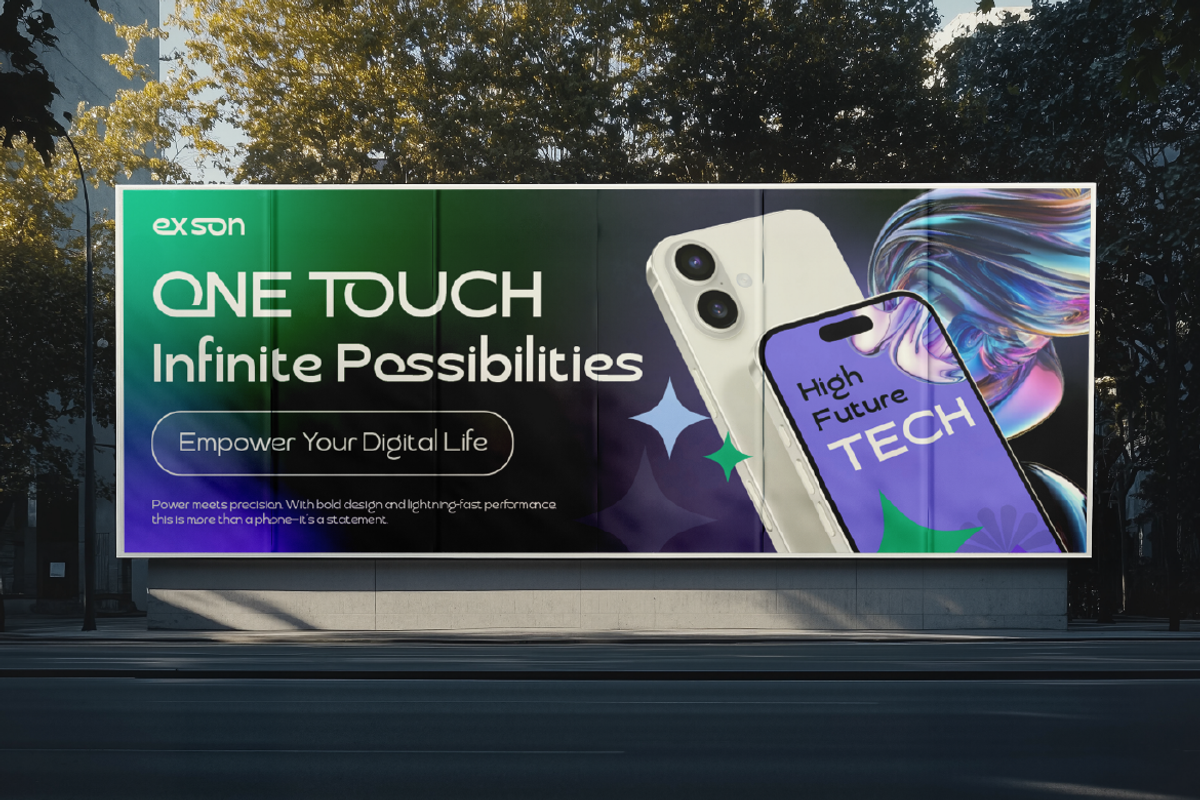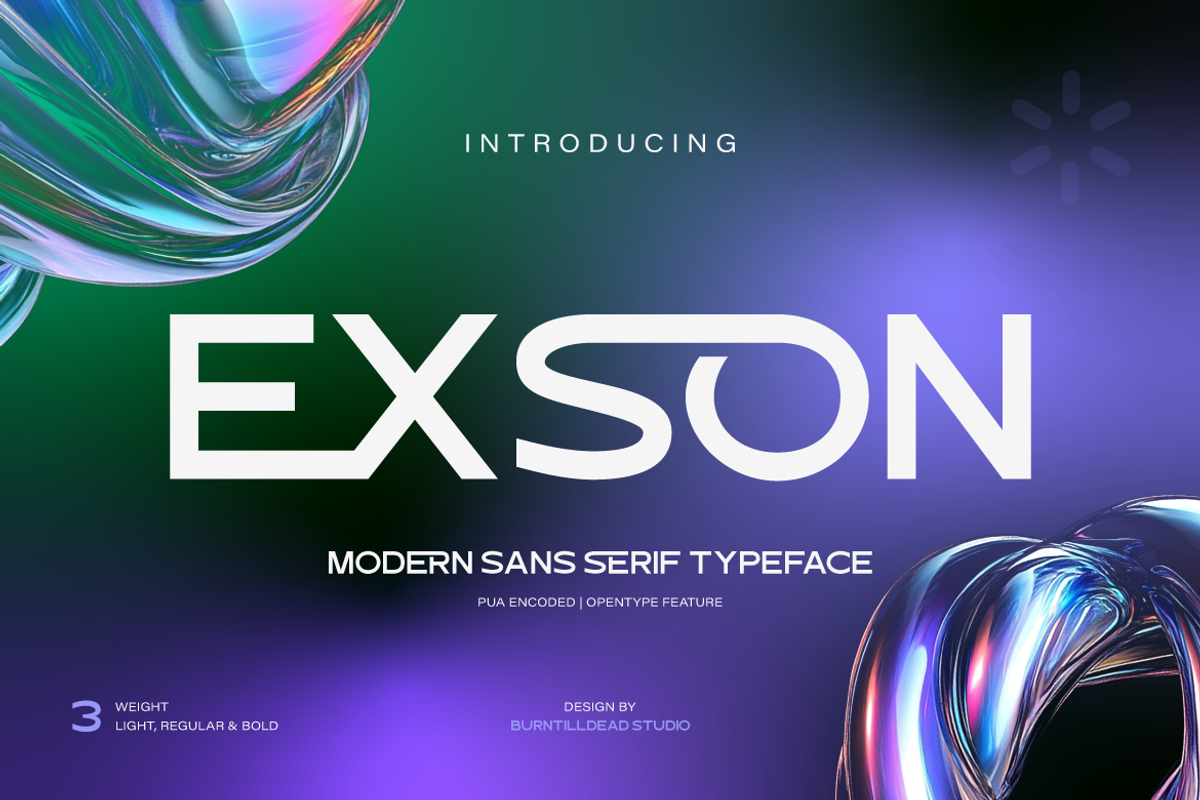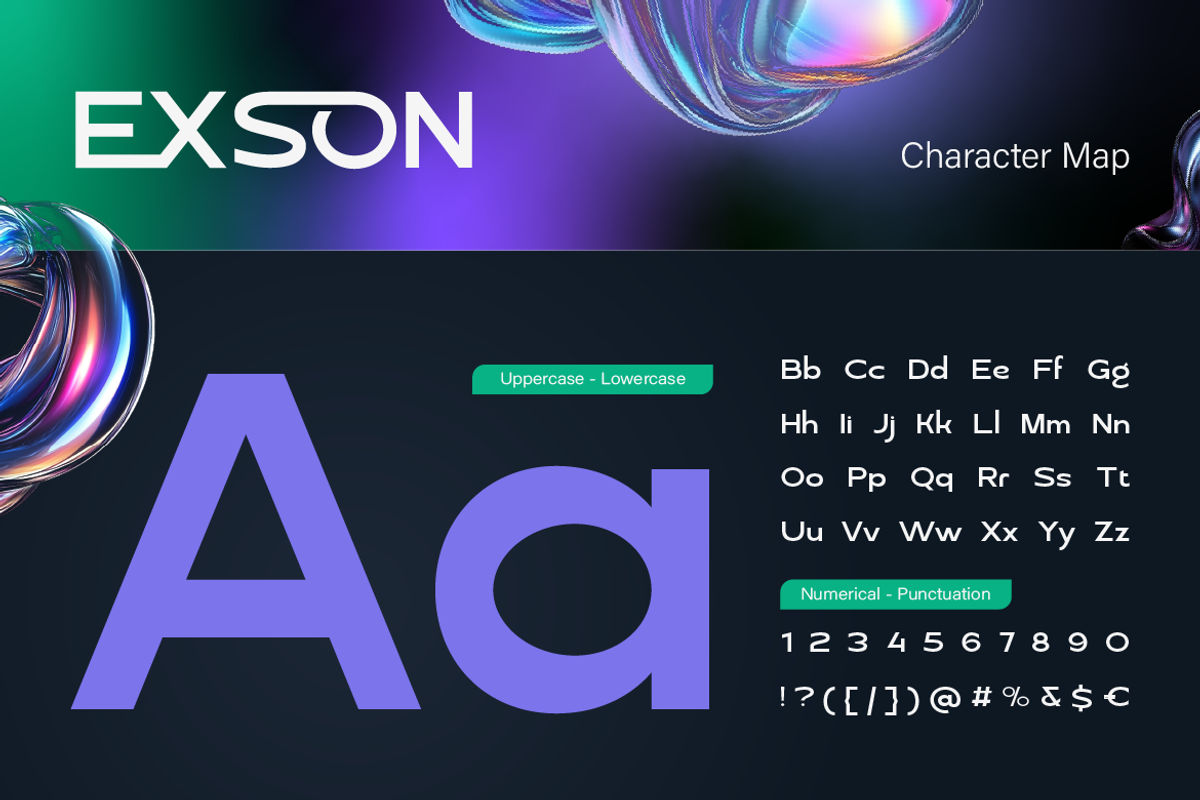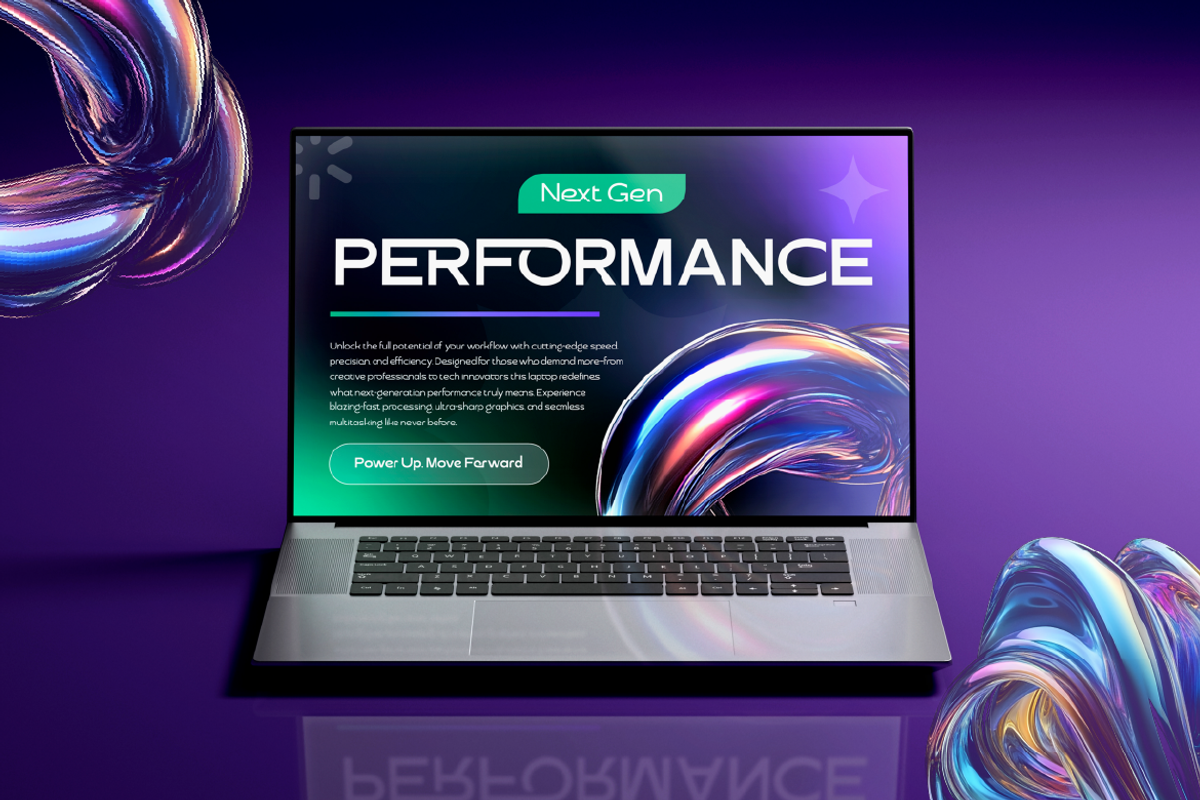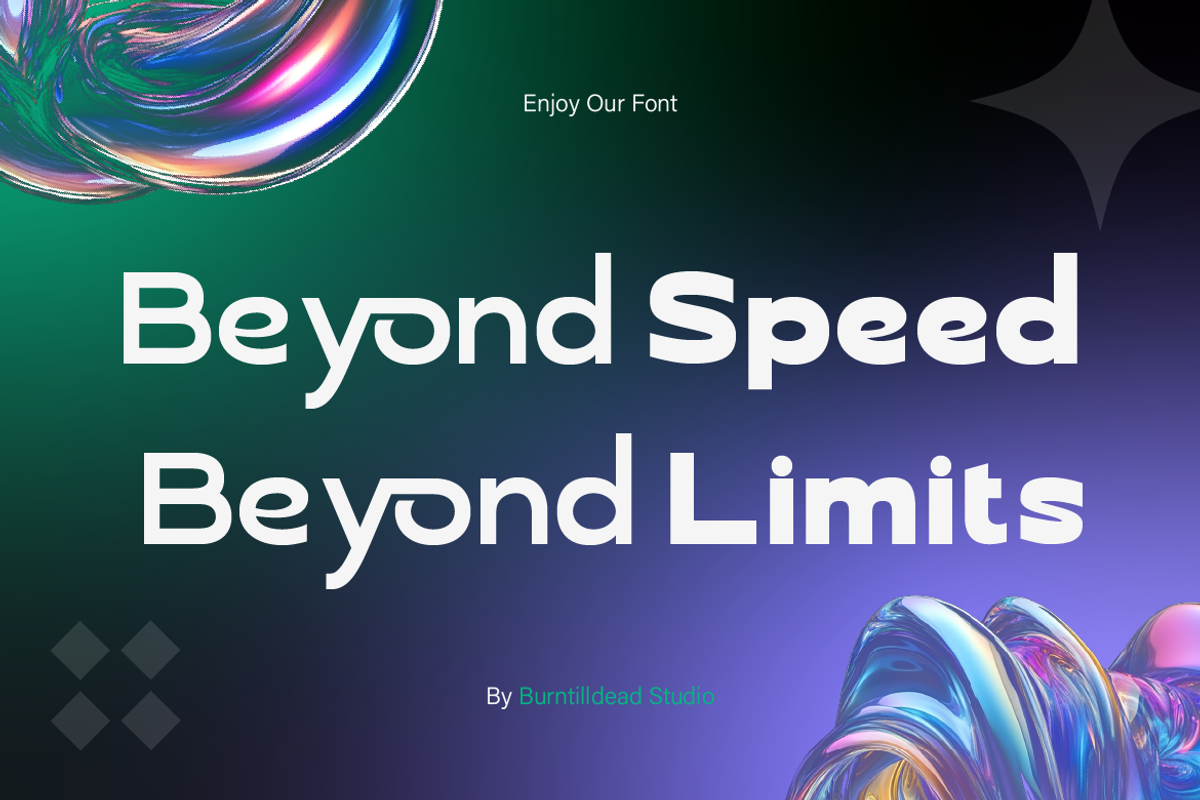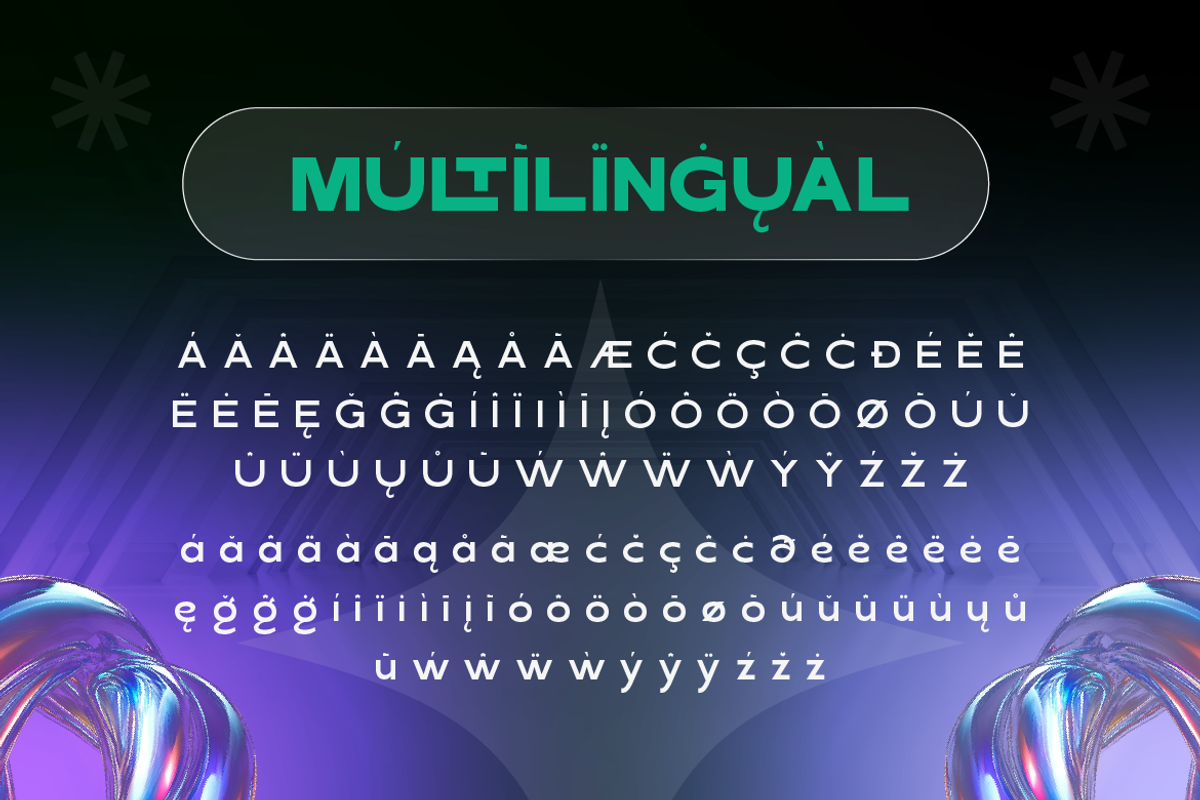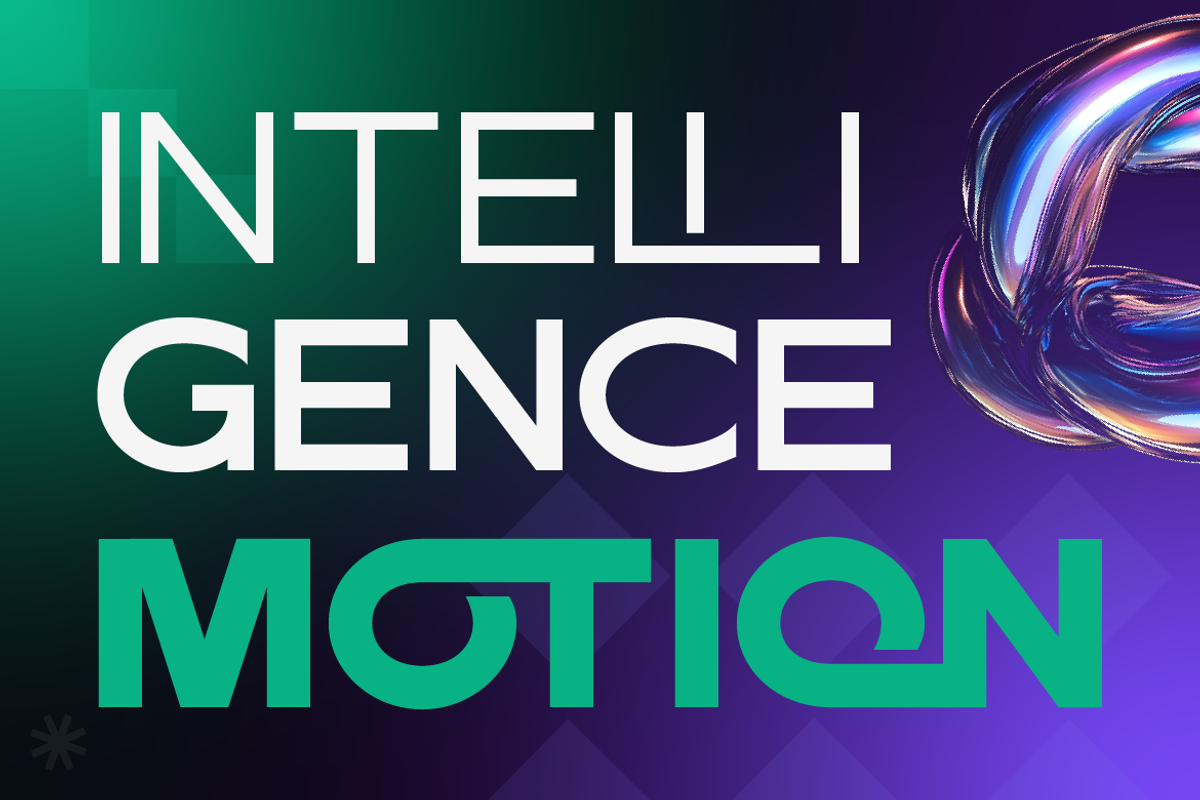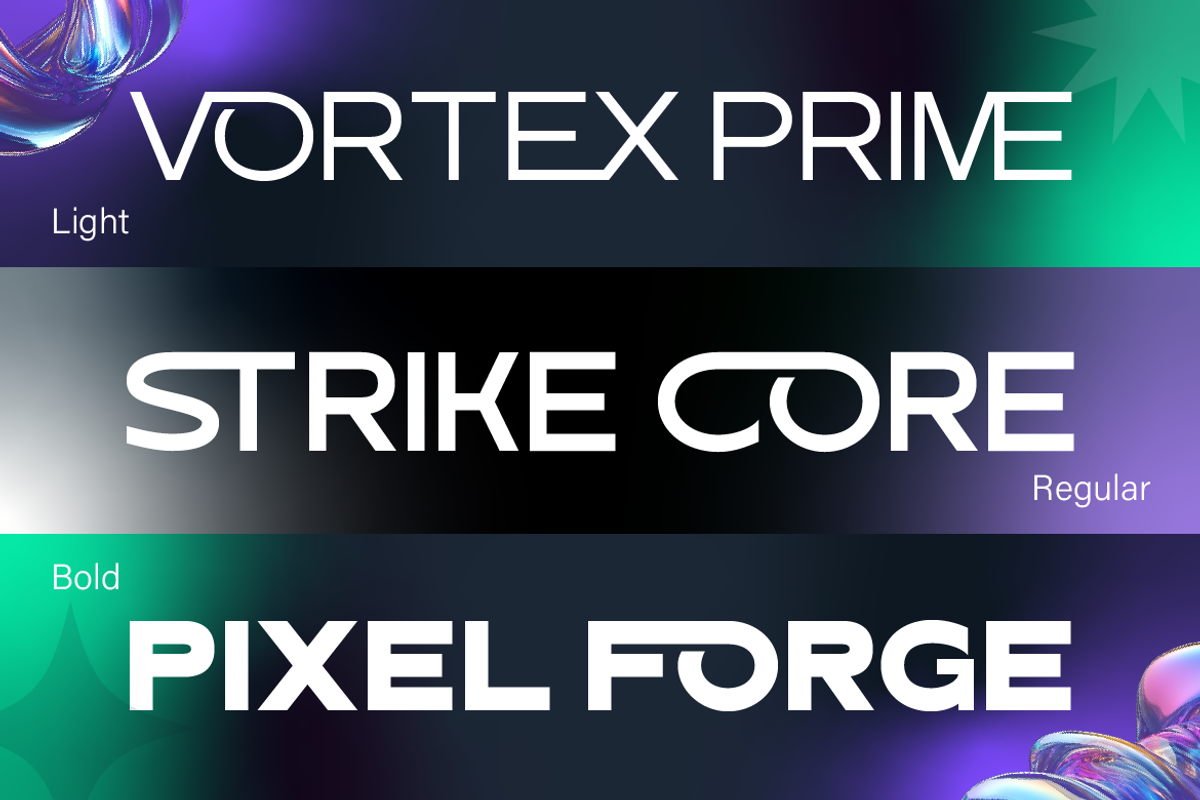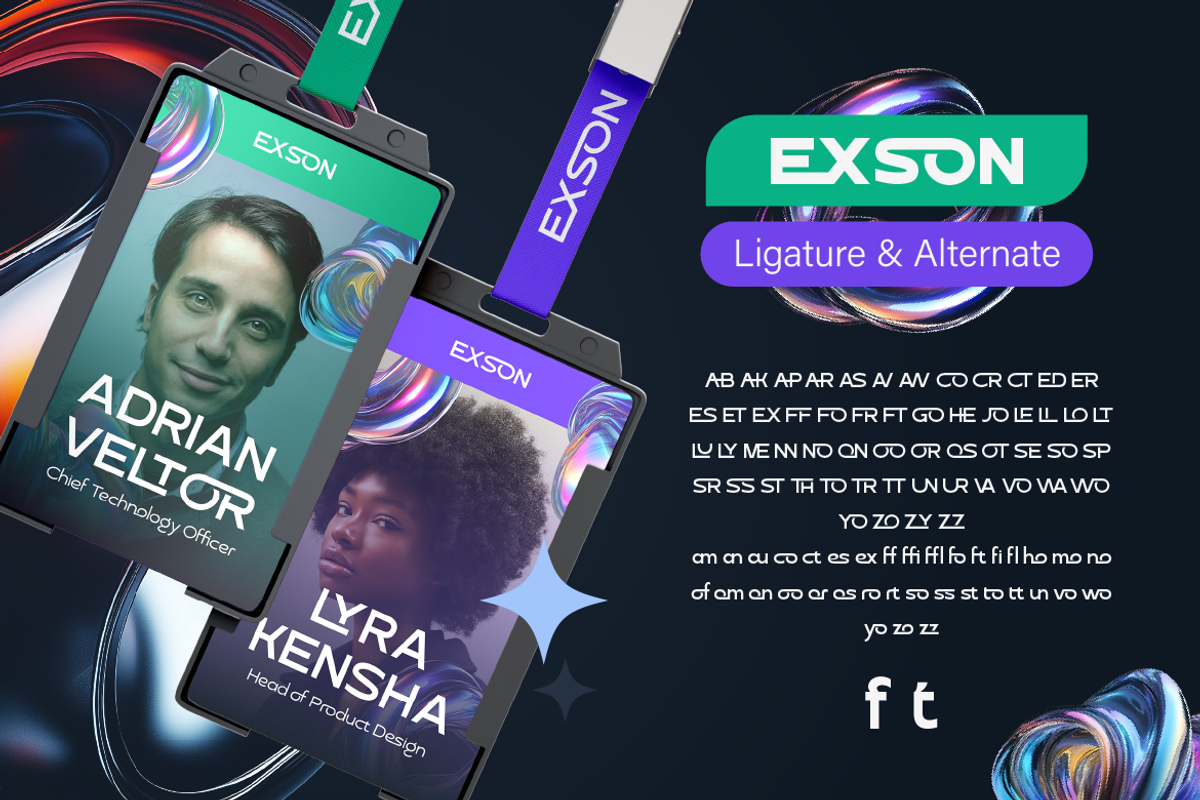
Exson
Introducing Exson, a clean and modern sans serif typeface designed to bring a futuristic, bold presence to your projects. Featuring 3 weights (Light, Regular and Bold), Exson adapts perfectly to both display headlines and body text. Its sleek curves and unique letterforms — because of the althernates and ligatures— make it eye catching and stand out. Exson ideal for branding, tech startups, digital interfaces, editorial design, and more. No matter the context, Exson adds that modern edge your design needs—sleek, smart, and bold.